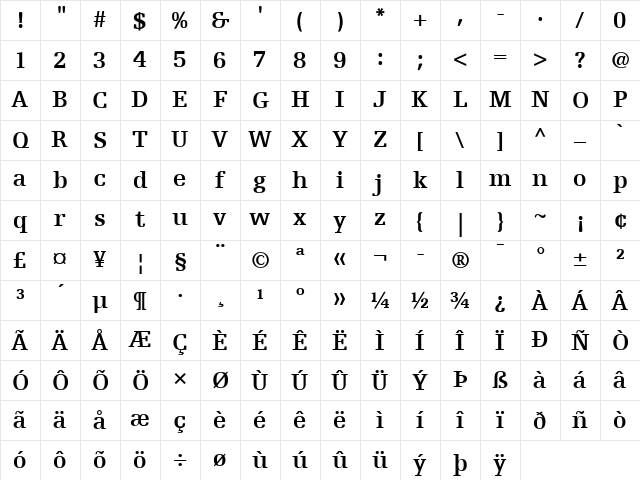
Complete EgyptienneF LT Roman Bold glyph index. Displaying only characters natively supported by EgyptienneF LT Roman Bold font.
EgyptienneF LT Roman is a composed and adaptable typeface that performs quietly and consistently across a wide range of design contexts. Its bold stroke weight gives it real presence on the page.